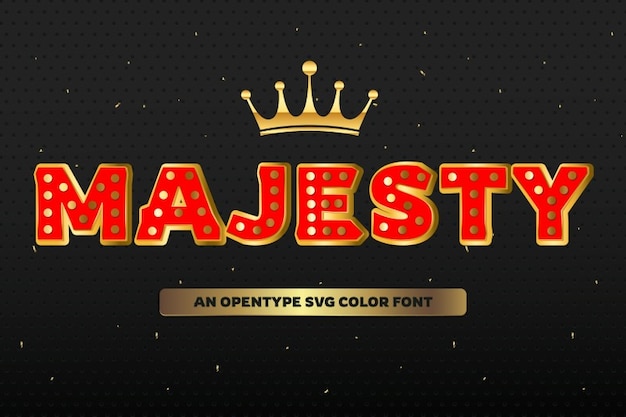
Majesty
Majesty Font
Majesty font is a design powerhouse! Its 3D, metallic appearance gives your text a regal and captivating aura. With an alluring glow, this decorative font truly commands attention. Whether you're working on branding, signage, or digital graphics, Majesty adds that touch of opulence and depth that makes your words shine like royalty. Reign over your designs with Majesty!